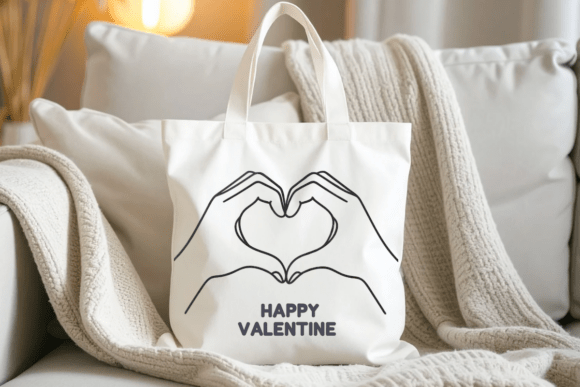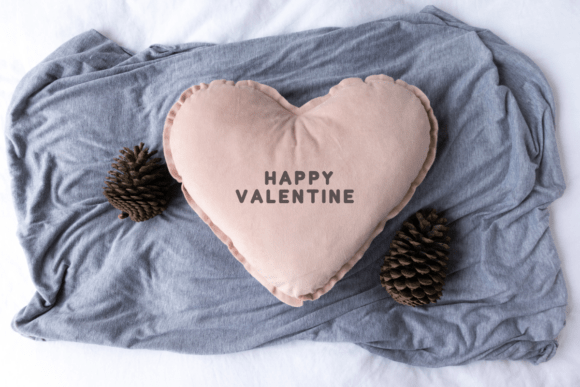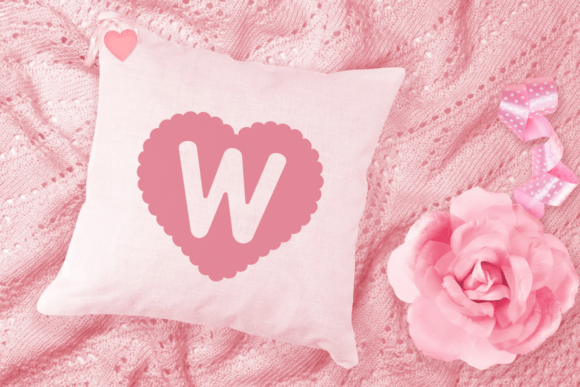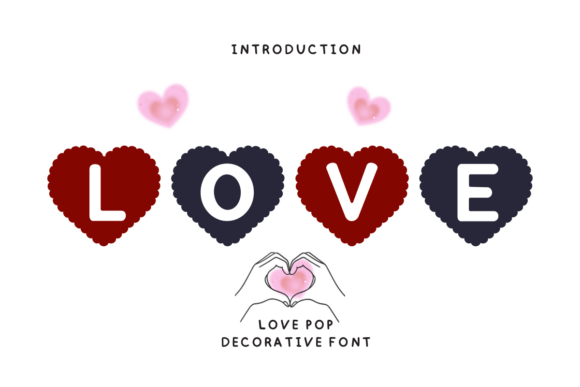
Introduction to Love Pop Font
Immerse yourself in the charming world of Love Pop, a breathtaking decorative font.
It’s perfect for personal journals, cherished notes or even for crafting heartwarming greeting cards But that’s just the beginning.
Key Features of Love Pop Font
Why Choose Love Pop Font?
Love Pop Font offers exceptional quality and versatility, making it a valuable addition to your design toolkit. Whether you’re creating for personal projects or commercial use, Love Pop Font delivers professional results.